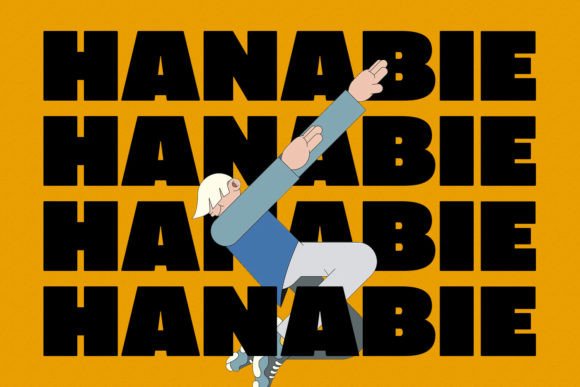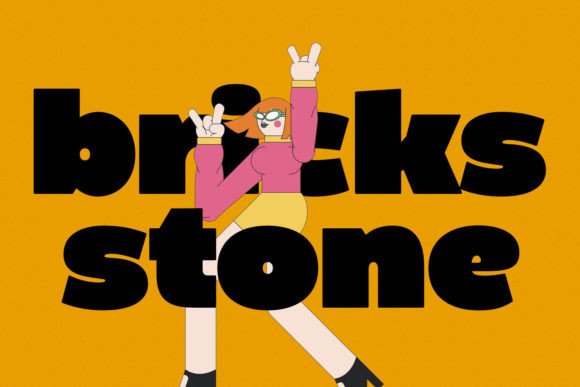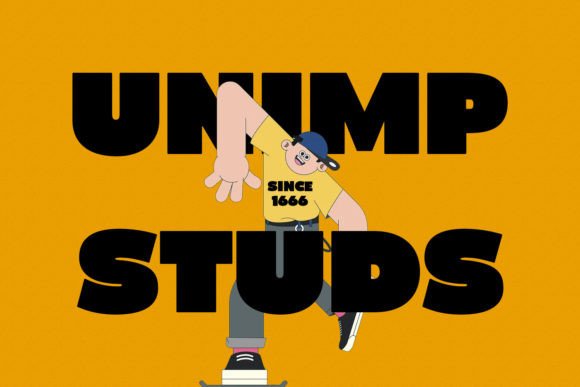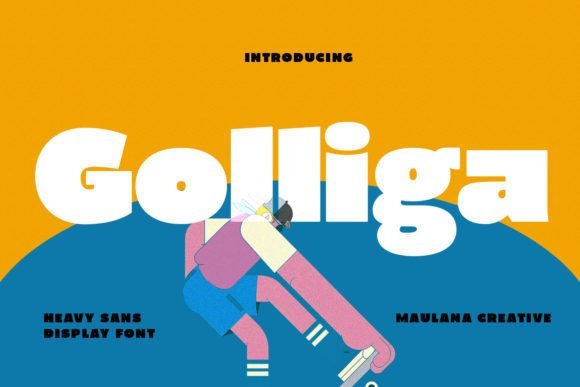
Introduction to Golliga Font
Golliga is a bold and impactful sans-serif display font designed to make a statement.
With its thick and heavy lines, it demands attention and exudes strength and power Its clean and minimalist design gives it a modern edge, making it perfect for logos, headlines, and posters.
Key Features of Golliga Font
Why Choose Golliga Font?